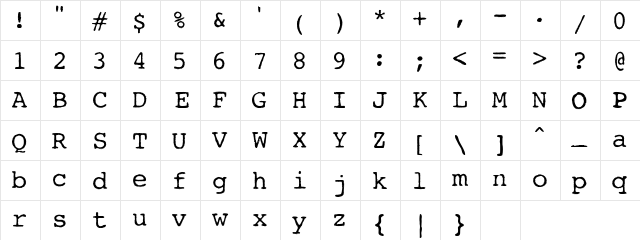
Complete AL Worn Machine Regular glyph index. Displaying only characters natively supported by AL Worn Machine Regular font.
AL Worn Machine embraces imperfection - its rough, textured character adds raw authenticity to designs that want to feel lived-in and unconventional.
Pro Tip: Use AL Worn Machine at larger sizes where the texture and irregularity of each letterform can be clearly seen - it loses its character at small sizes.